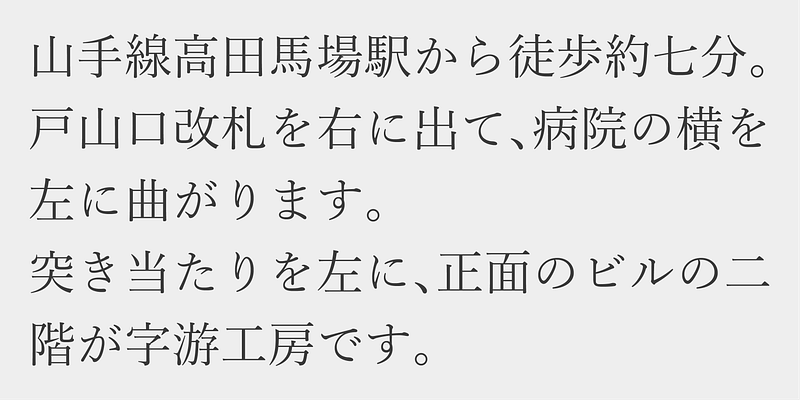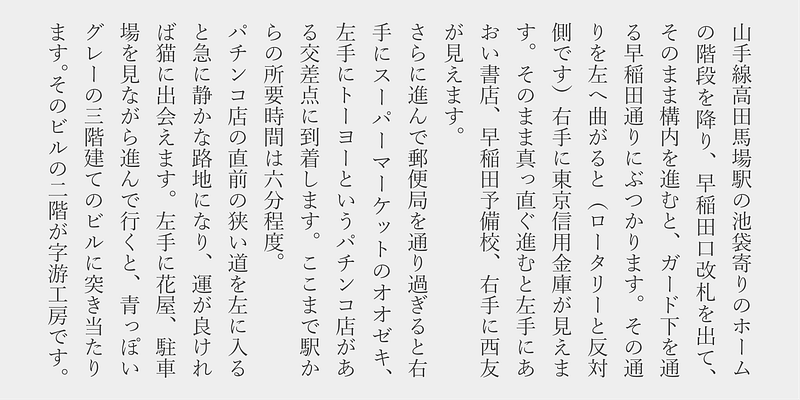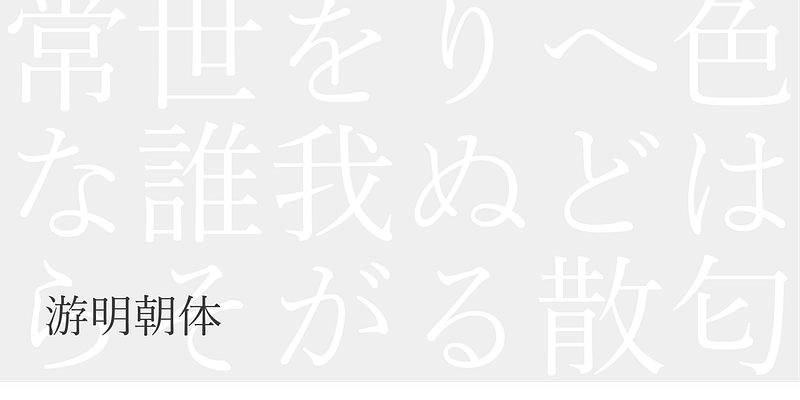
Yu-Minchotai was developed around the key concept of “Creating a typeface for composing novels.” Hardback and paperback novels are the target use. Yu-Minchotai combines modern style kanji (ideographic) characters with consistent visual sizes and standard traditional kana characters, which is rarely seen in other typefaces.